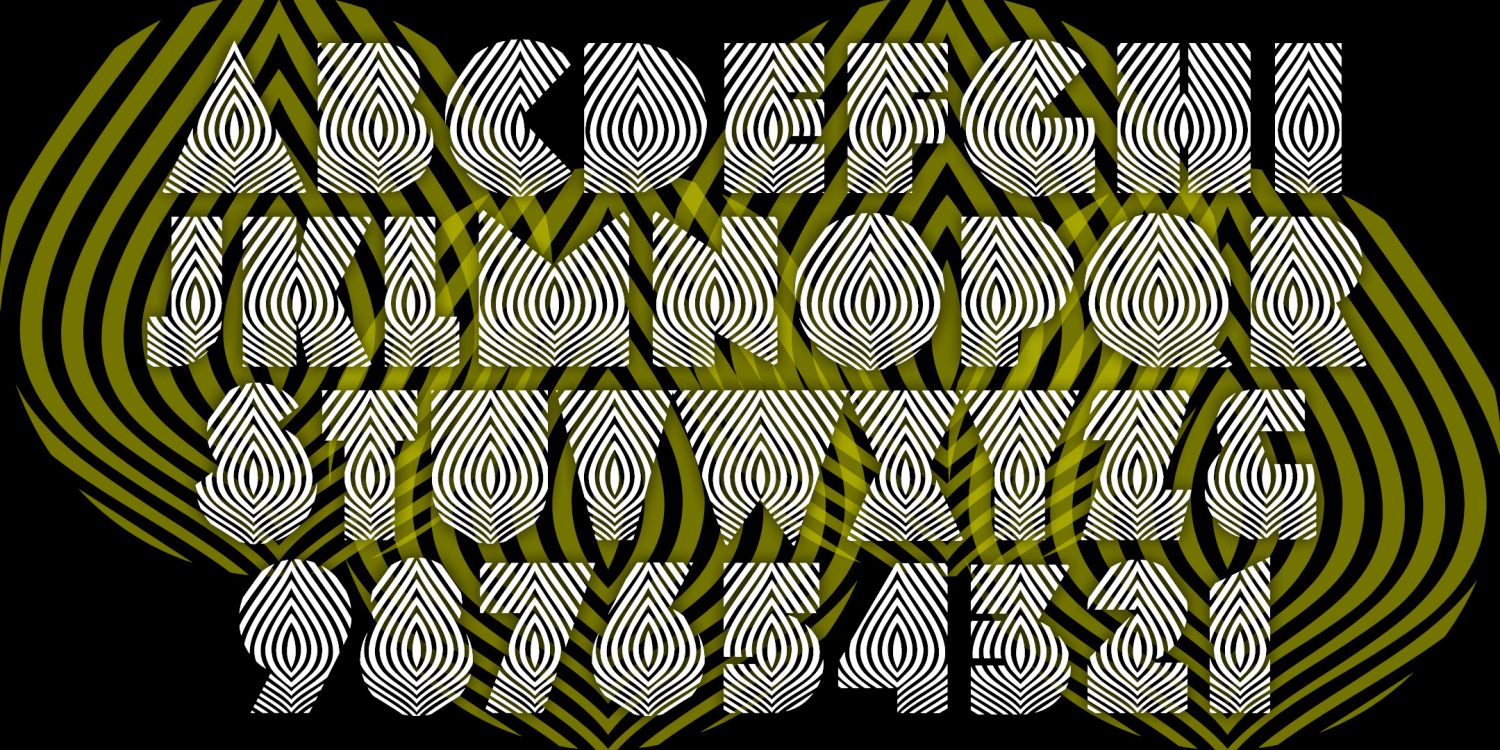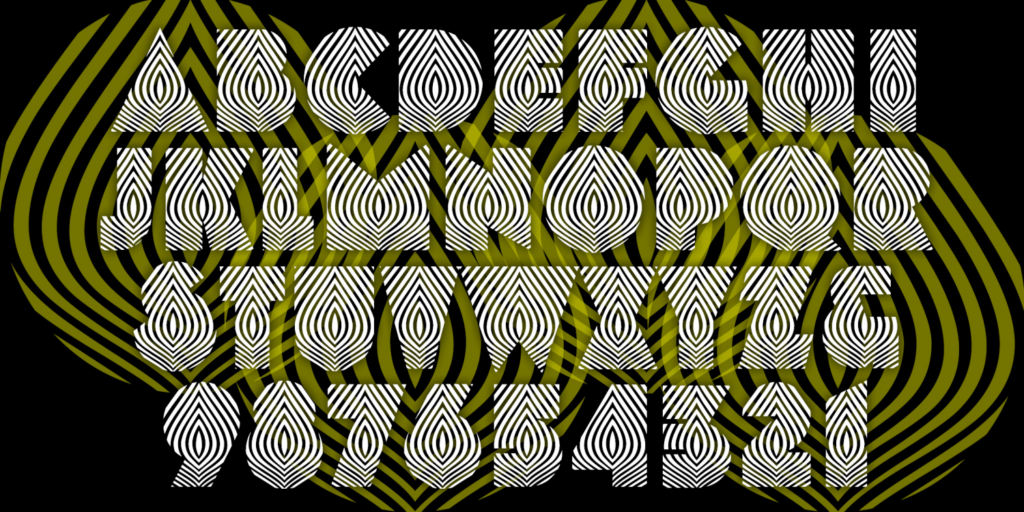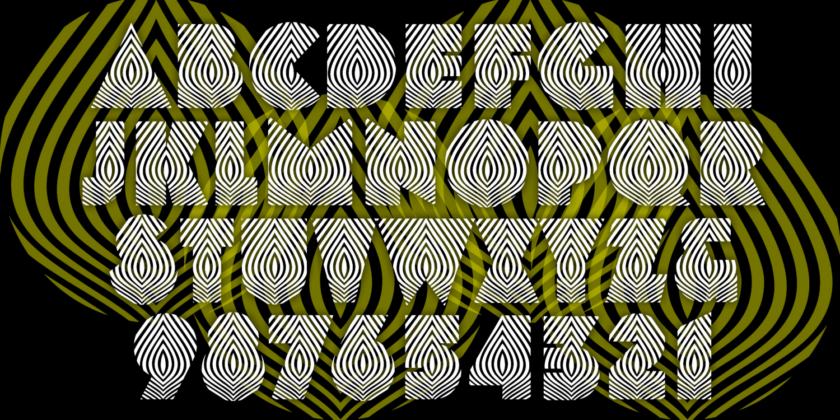
Onion
About Onion
ONION is a font that looks like Op Art: all undulating parallel lines that stimulate the eye. It was inspired an unidentified style included in a book of Art Deco designs "selected from rare periodicals (mostly European), type catalogs and printed…